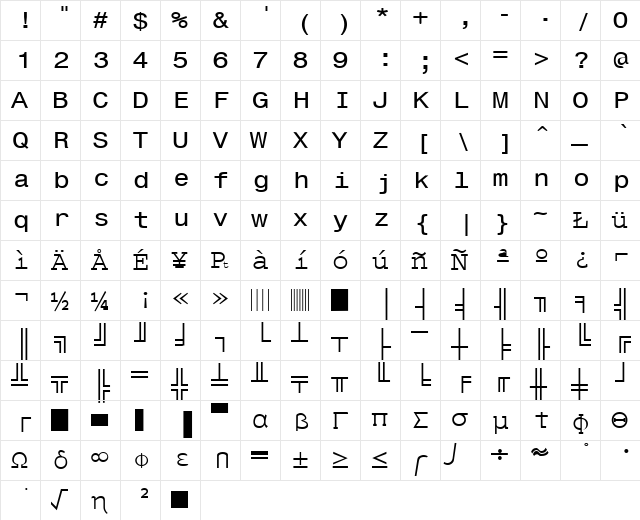
Sans MP Regular
Design Context for Sans MP Typeface
Sans MP offers clean, dependable letterforms without strong stylistic allegiance, making it a practical choice for designers who need flexibility.
Pro Tip: Pair Sans MP with a font of contrasting weight or personality to build a more expressive typographic hierarchy.